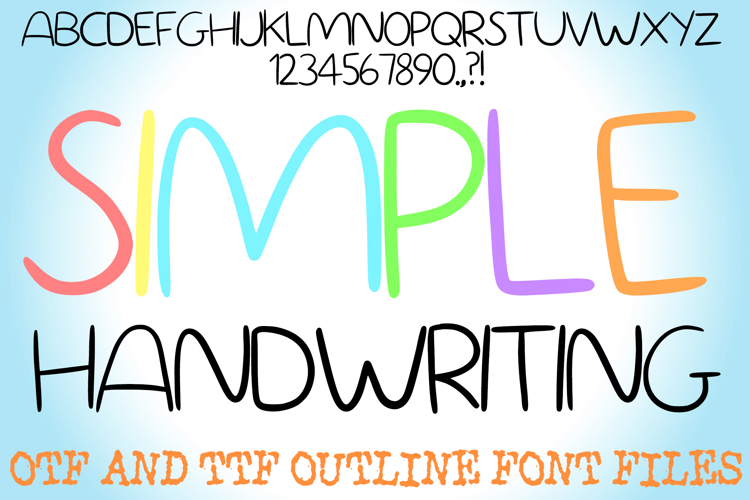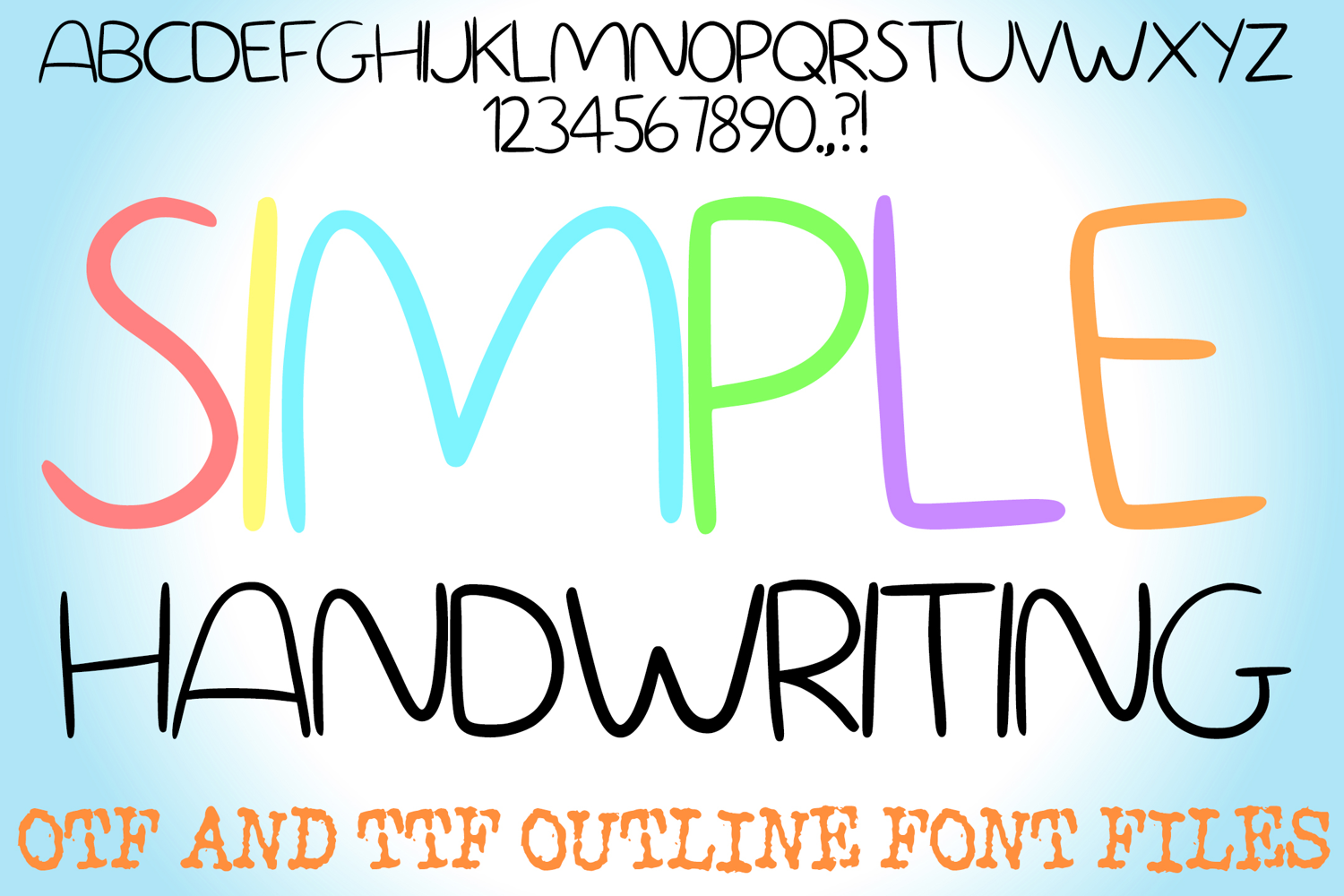
Bring a clean and natural touch to your creative projects with the Simple Handwriting Font! This hand-drawn display typeface features thin, uniform strokes that capture the effortless look of natural penmanship. Its minimalist style and tall, airy characters make it an incredibly versatile choice for everything from modern branding to casual classroom materials.
The organic, slightly irregular outlines give each letter a friendly "doodle" personality that feels authentic and handcrafted. Whether you are creating elegant digital planners, minimalist social media quotes, or stationery, the Simple Handwriting Font provides a clear and charming foundation for your text.
Why You’ll Love Simple Handwriting Font:
Clean & Minimalist: Every letter (A-Z) and number (0-9) is designed with a thin, consistent line weight for maximum legibility.
Natural Penmanship: Features the authentic "pencil-to-paper" feel of real handwriting.
Versatile Use Cases: Perfect for subtle captions, primary headers, or secondary text in complex designs.
Craft-Ready Outlines: The simple, bold shapes are easy to use with vinyl cutting machines like Cricut and Silhouette.